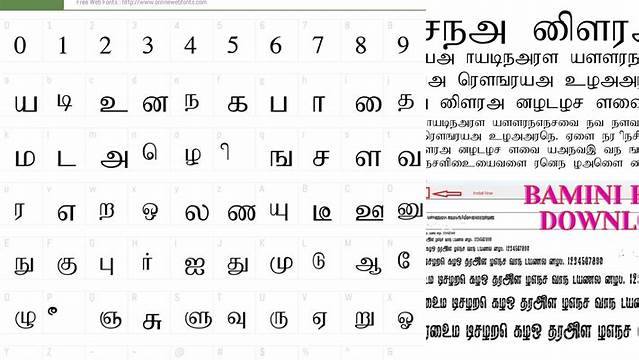
Bamini Plain Font: Free Download Guide
Hey guys! Ever been on the hunt for that perfect Tamil font that’s both classic and clean? Well, look no further! Today, we're diving deep into the world of Bamini Plain Font, a timeless choice for anyone working with Tamil script. We'll cover everything from where to snag it for free to how to use it effectively in your projects. So, let’s get started!
1. What is Bamini Plain Font?
Before we jump into the download details, let's understand what makes Bamini Plain Font so special. This font is a staple in Tamil typography, known for its simplicity and readability. It's often used in official documents, publications, and even everyday typing. The clean lines and classic design make it a versatile choice for a wide range of applications. Think of it as the Helvetica of Tamil fonts – reliable, straightforward, and always in style.
Bamini Plain Font has a long history, becoming a go-to for many because it is easy to read. It works well in printed documents and on computer screens. The font's consistent strokes and letterforms help people read faster and understand the text easily. It’s designed to be functional, which is why you'll see it used everywhere from books and newspapers to websites and applications. Plus, its straightforward design makes it a great option for people who are just starting to work with Tamil script on computers. This font is like a comfortable pair of shoes – always a good fit.
2. Why Choose Bamini Plain Font?
So, why should you choose Bamini Plain Font over other Tamil fonts? There are several compelling reasons. First, its legibility is top-notch, making it easy on the eyes even for extended reading. Second, it's widely supported across various platforms and applications, ensuring compatibility no matter where you're using it. Third, and perhaps most importantly for many, it's readily available for free download. We’ll get into the specifics of where to find it in a bit!
The versatility of Bamini Plain Font is another big win. It’s not just for formal documents; you can use it in creative projects too. Its simplicity means it pairs well with other fonts, giving you flexibility in your design choices. Whether you’re creating a poster, designing a website, or writing a report, Bamini Plain can seamlessly fit in. Its widespread use also means that it’s a familiar sight for Tamil readers, creating a sense of comfort and recognition. It’s a font that feels both professional and approachable, making your text clear and inviting.
Its enduring legacy is a testament to its thoughtful design and its cultural importance. Whether you’re a designer, a typographer, or simply someone who appreciates Tamil script, Bamini Plain Font is a typeface worth understanding and celebrating. It’s a font that connects the past with the present, and its influence will continue to be felt for years to come. So, go ahead, download it, use it, and appreciate the timeless beauty of Bamini!